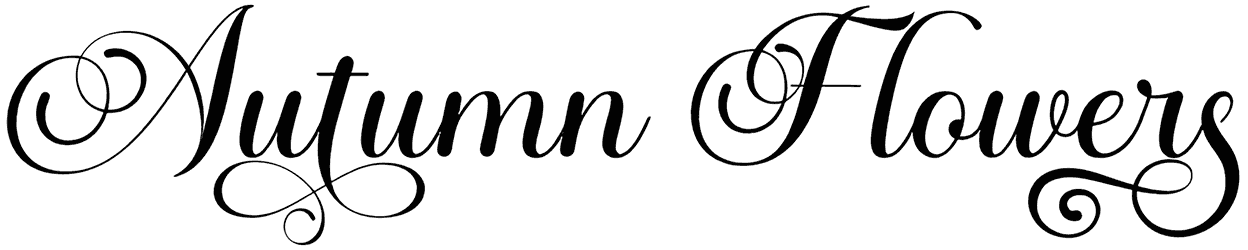
After determining the personality of your graphic content, you should pick a cohesive font. For designing high-end product packaging, flyers, blog posts, magazines, or social media posts, we would like to offer you to select a lovely script font such as Cookies Cream.
Due to its rounded edges and crooked letters, this romantic font can lead to a sense of dynamism, personalization, delicacy, or viability. Also, check out our archive to find daily updates.